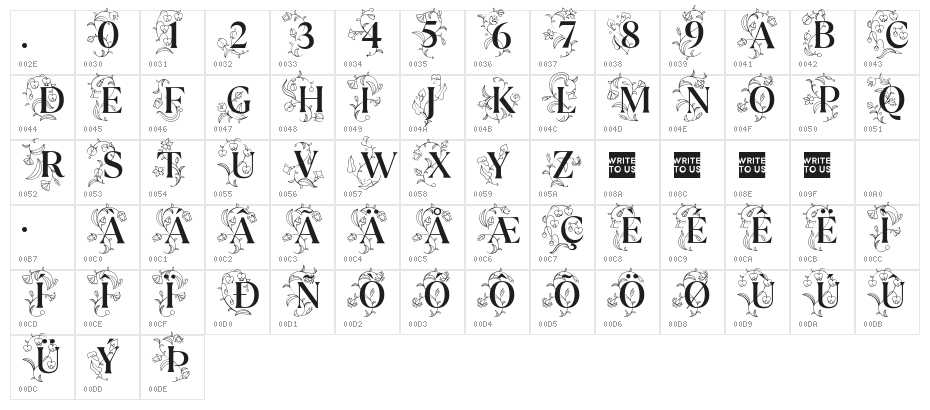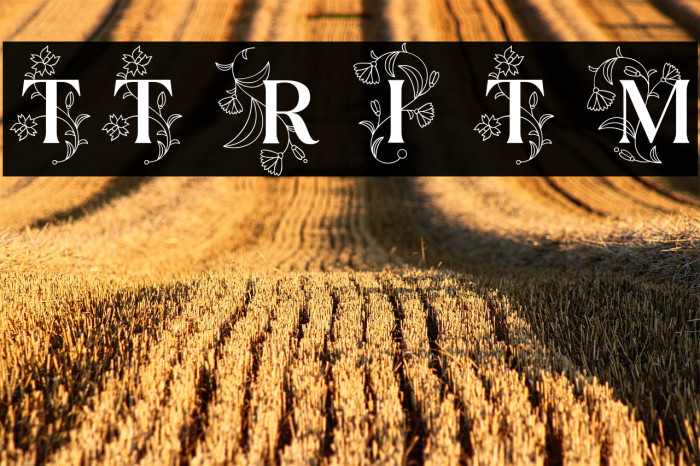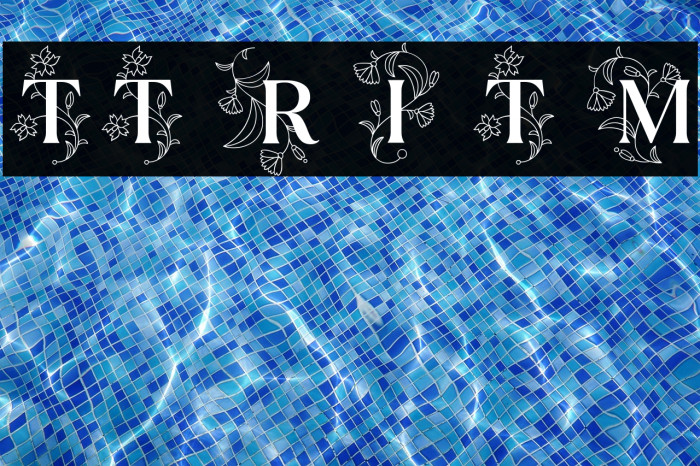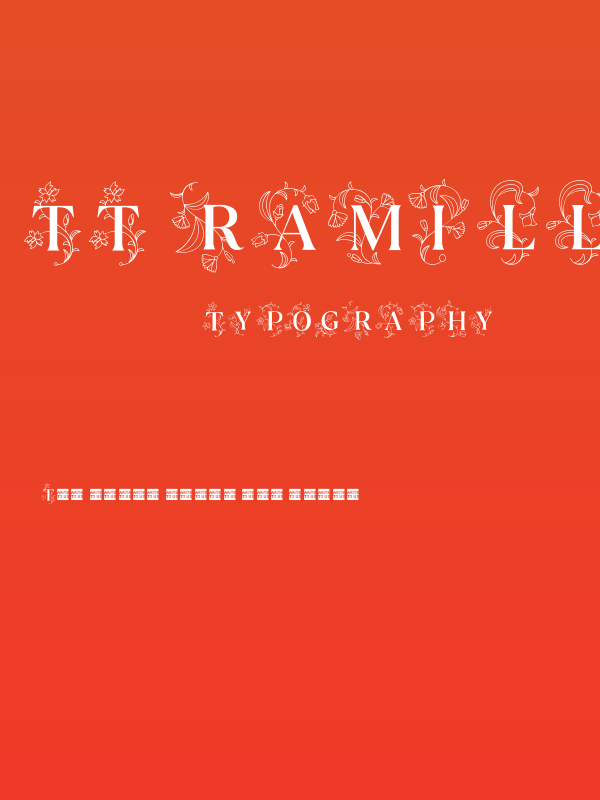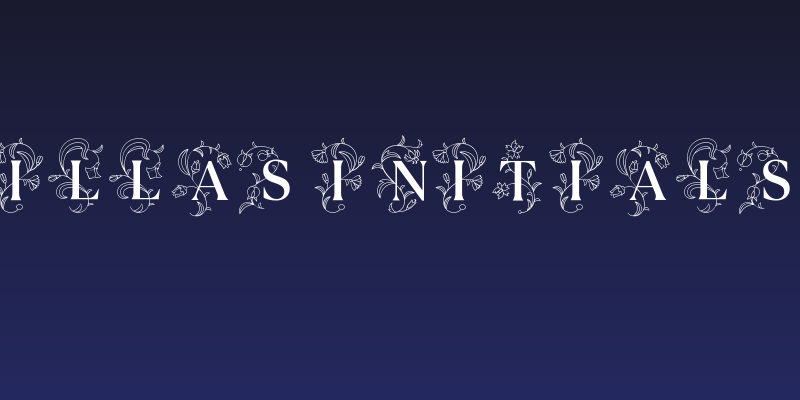
TT Ramillas Initials Trl Md Font
TT Ramillas Initials Trl Md Description
This font is a decorative and ornate typeface that features intricate floral embellishments surrounding each character. The uppercase letters are bold and prominent, with each letter adorned by detailed floral motifs that give it a vintage and elegant appearance. The numbers follow the same decorative style, making them visually cohesive with the alphabet. The overall design is reminiscent of classic illuminated manuscripts, making it suitable for projects that require a touch of historical or artistic flair.
| Use Case | Headlines, Logos, Decorative text |
| Proposed Projects | This font is perfect for wedding invitations, vintage-themed posters, artistic book covers, and any project that requires a touch of elegance and historical charm. |